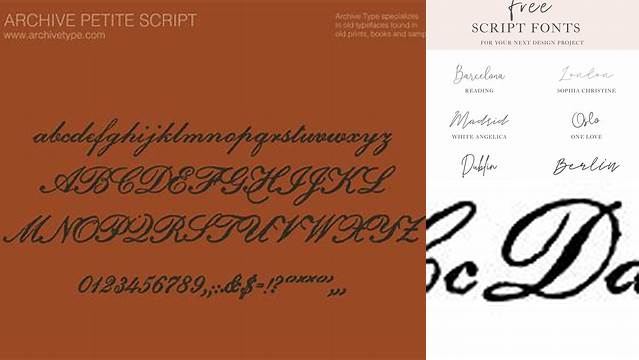
Unveiling the Allure of Archive Petite Script Font
Archive Petite Script Font isn't just another typeface; it's a statement. It's the embodiment of timeless beauty, with its graceful curves, delicate strokes, and an overall sense of refinement. This font is perfect for a wide range of design projects, from wedding invitations and branding materials to social media graphics and website headers. Its versatility allows you to create designs that are both eye-catching and memorable. The font's elegant design lends itself well to projects where you want to convey a sense of luxury, sophistication, and individuality. Whether you're a seasoned graphic designer or a newbie exploring the world of typography, Archive Petite Script Font is a fantastic addition to your font library. Its readability and aesthetic appeal make it an ideal choice for various applications, ensuring your designs stand out. The font is designed to be easily legible even at smaller sizes, which makes it an excellent option for body text in certain applications, although it shines the brightest in headings and display text. Think of its potential for logo design, creating elegant signatures, or adding a personalized touch to any creative endeavor. The font's script style evokes a sense of nostalgia and classic beauty, which is why it's often selected for projects that aim to evoke feelings of romance, tradition, or artistic expression. When you download the Archive Petite Script Font, you're not just getting a typeface; you're acquiring a tool to unlock your creative potential. The font will help you transform your ideas into visual masterpieces. With its graceful style and impeccable design, you can easily elevate the quality and impact of your work.
The origins of the Archive Petite Script Font might be shrouded in a bit of mystery, but what's certain is the lasting impact it has on the design world. Over time, it has emerged as a go-to choice for creatives seeking to add a touch of sophistication and personality to their projects. Its growing popularity is a testament to its versatility and its unique ability to capture attention and evoke emotion. Its charm stems from its well-balanced proportions and the way it integrates seamlessly into various designs, both in digital and print media. It has found its way into countless projects, from elegant wedding invitations and branding materials to blog headers and social media posts. The enduring appeal of the Archive Petite Script Font is proof that a well-designed typeface can transcend trends, maintaining its allure through the evolving landscape of design. As designers continue to seek new ways to create designs that impress, the Archive Petite Script Font remains a trusted and valuable resource, helping to build brands and captivate audiences.
Design Tips and Best Practices
- Pairing: Pair the Archive Petite Script Font with a clean, sans-serif font for body text to provide a great balance and better readability. This combination creates visual interest while ensuring that the main body of text is easy to read. Avoid pairing it with overly ornate fonts, as this can create a cluttered and confusing design.
- Spacing: Adjust the letter spacing and line height to create a balanced and visually pleasing design. This is particularly important with script fonts, as the characters can sometimes feel cramped or disjointed. Experimenting with spacing is crucial to finding the perfect balance and improving the legibility of your design.
- Color: Choose colors that complement the font and enhance the overall message of your design. Consider using soft colors to create a romantic or delicate feel, or bold colors to make a statement. Also, use color to highlight important information and draw attention to specific elements in your design. Make sure to consider color contrast for readability, especially if you plan to use your design in print.